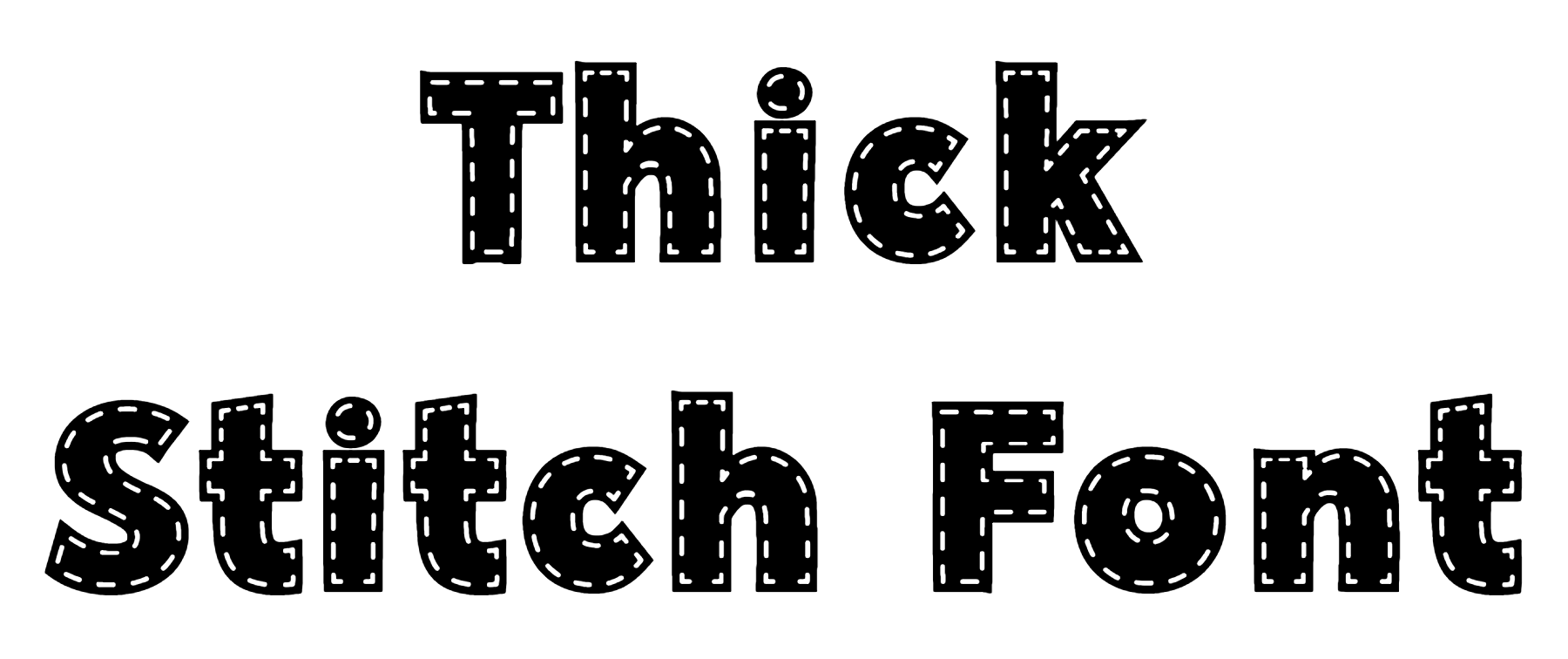
Thick Stitch
Thick Stitch is a fancy font made by Misti's Fonts (2024). It's a decorative display font with plenty of personality, made to grab attention. It's a free download, and you can try it with your own text in the preview above first.
With complete upper and lowercase letters and all ten digits, Thick Stitch is ready for real wording, not just a single headline. Everyday marks like &, !, ? and @ are there too. Thanks to its accented letters, it also works for Spanish, French, German, Portuguese and Italian, not just English.
Think of Thick Stitch for posters, logos and eye-catching headlines. Use it for one standout word or headline and let simpler fonts handle the rest.
Yes. Thick Stitch includes the accented letters needed for Spanish, French, German, Portuguese and Italian, so it works for more than just English.